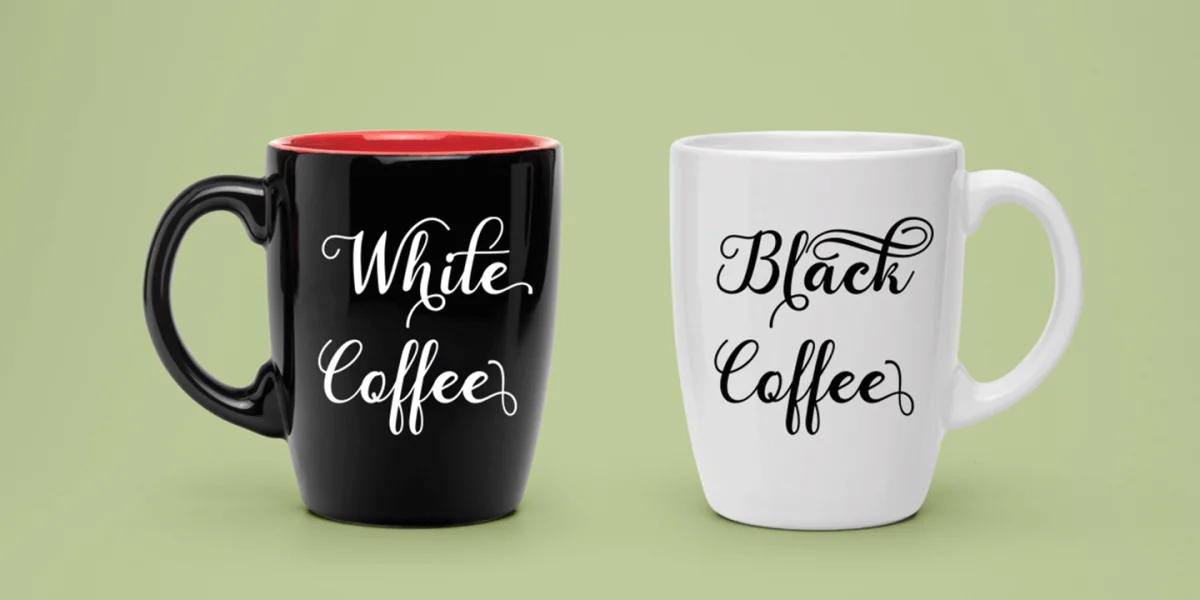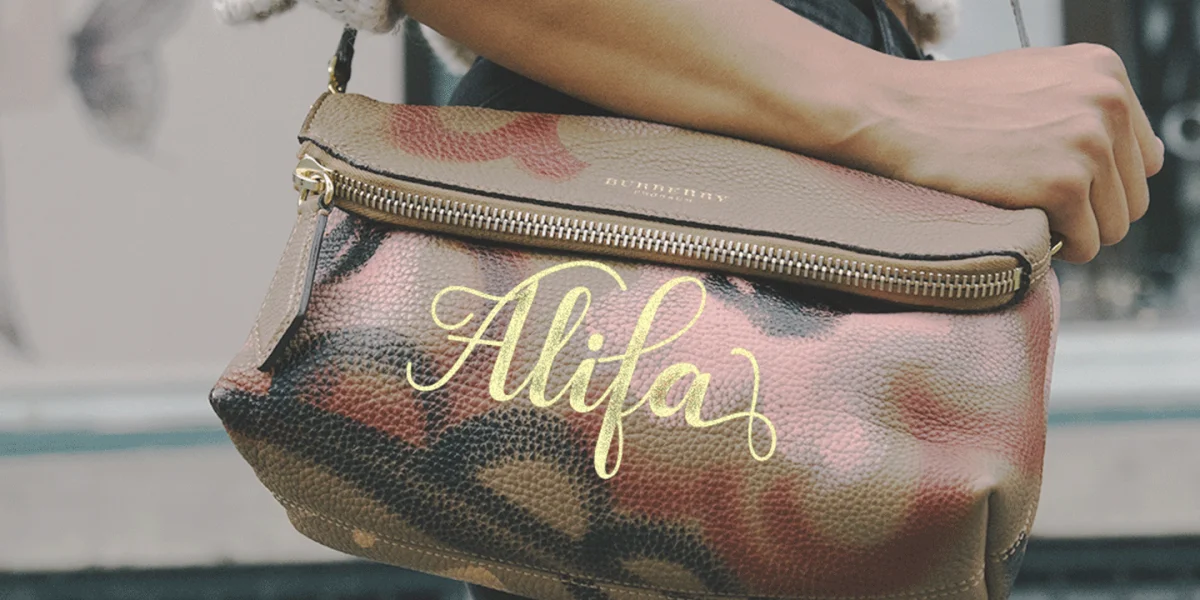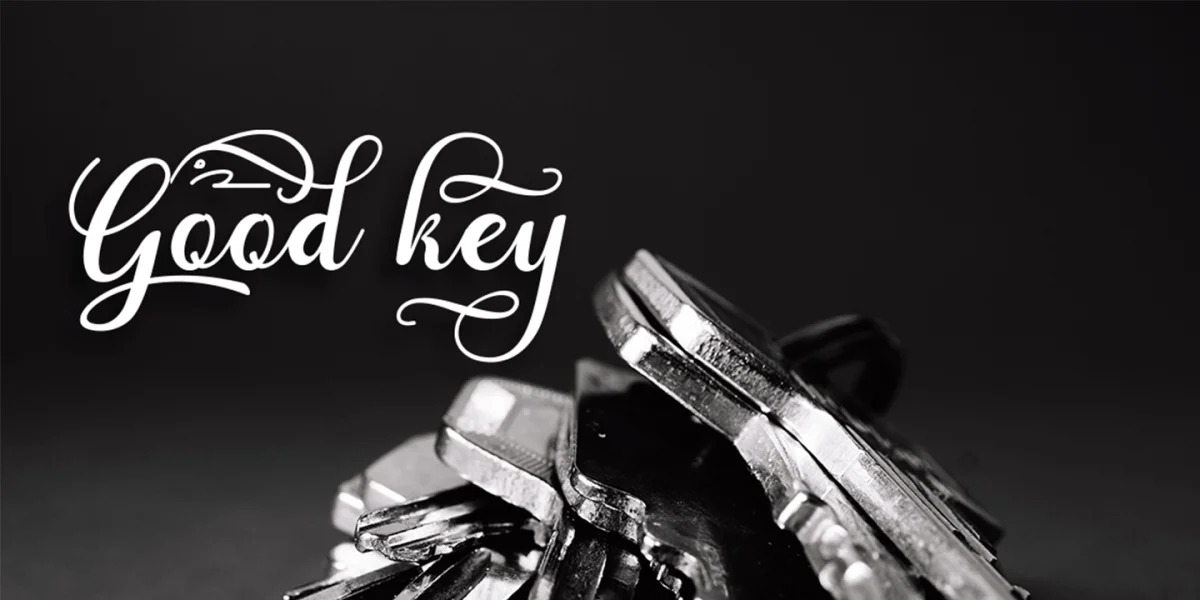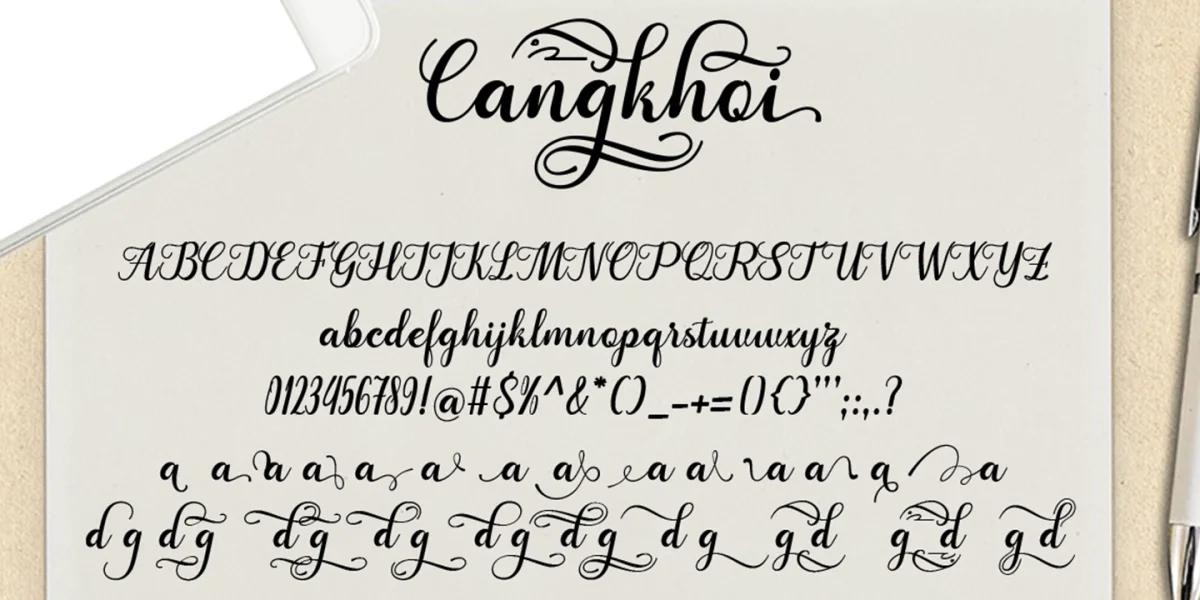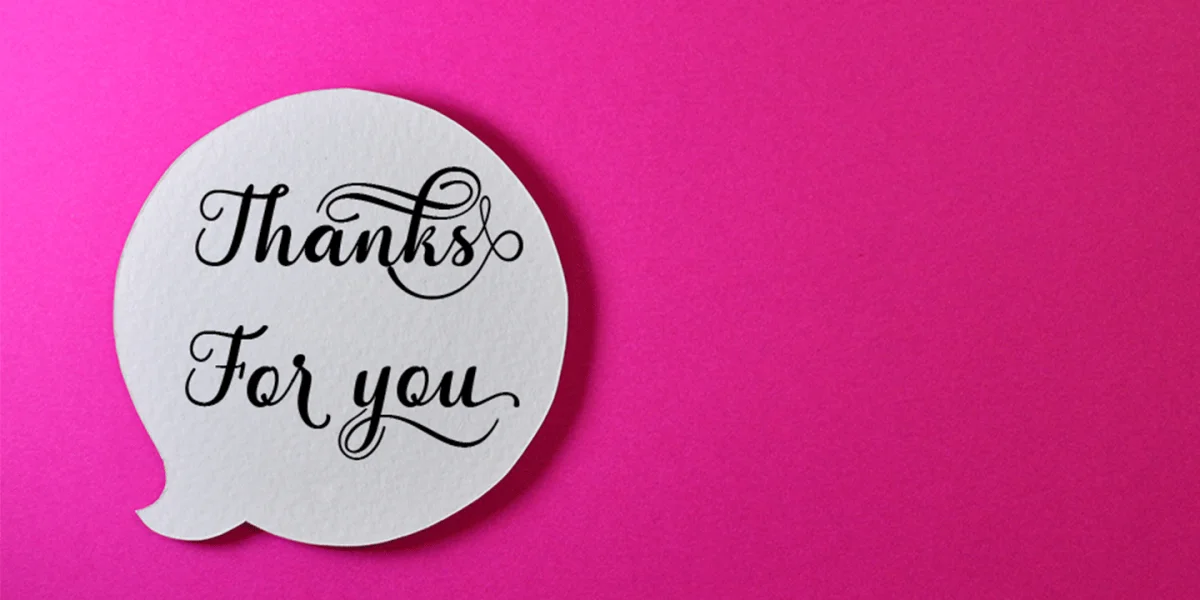
The Cangkhoi is a fresh and modern script font. It has an amazing handmade calligraphy style and a beautiful dancing lineage.
It’s perfect for invitations, greeting cards, branding material, business cards, quotes, posters, and more!